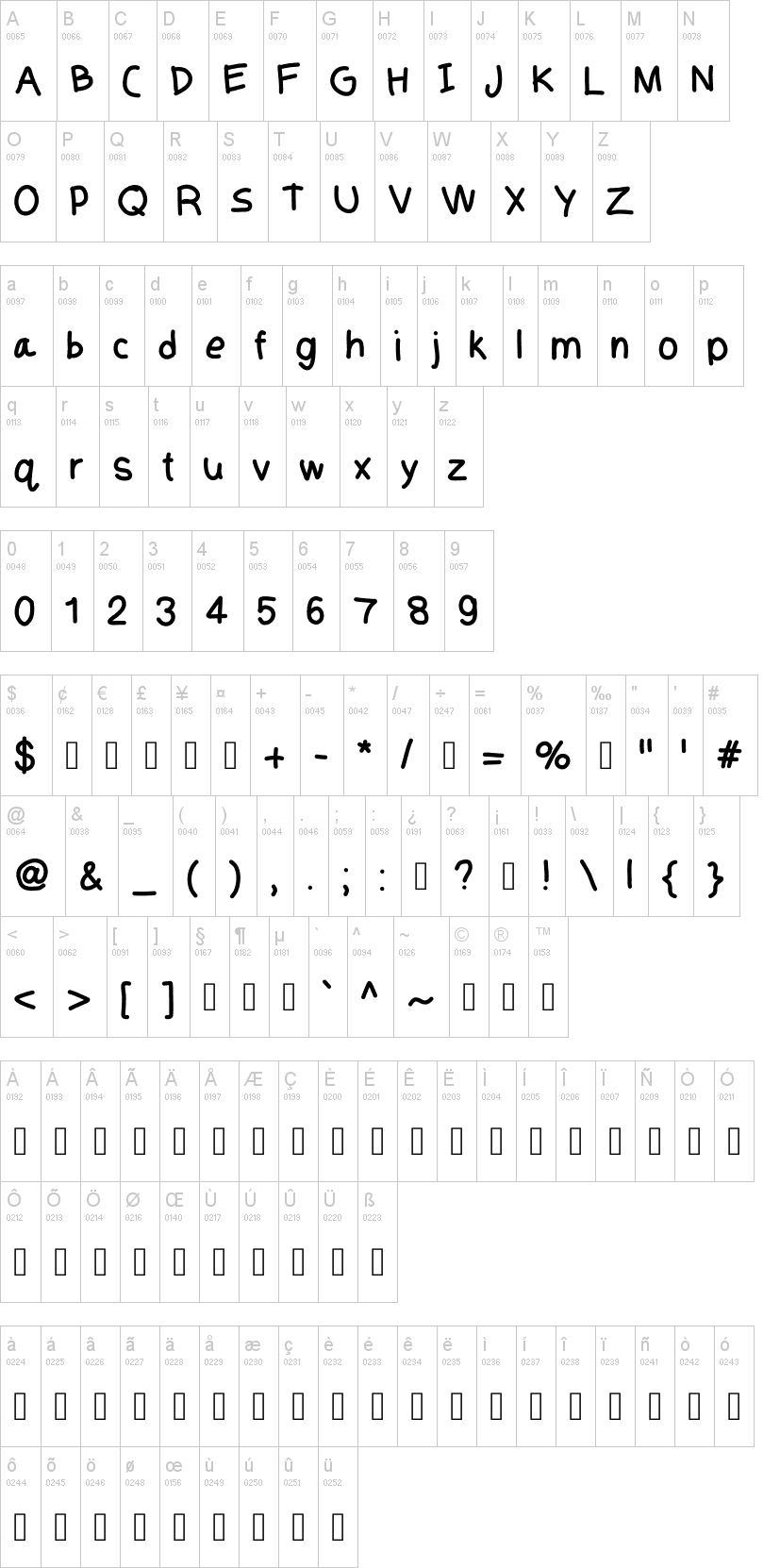
Шрифт Mobiles
A font designed to replicate a child's handwriting. Great for diaries and emails. Email me at  with comments. This font is free for personal and commercial use.